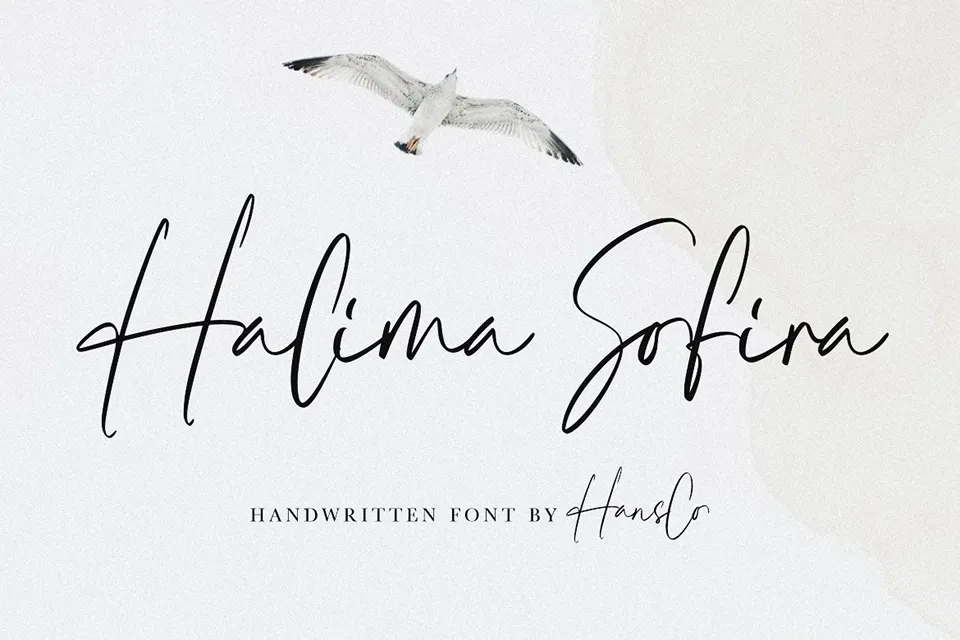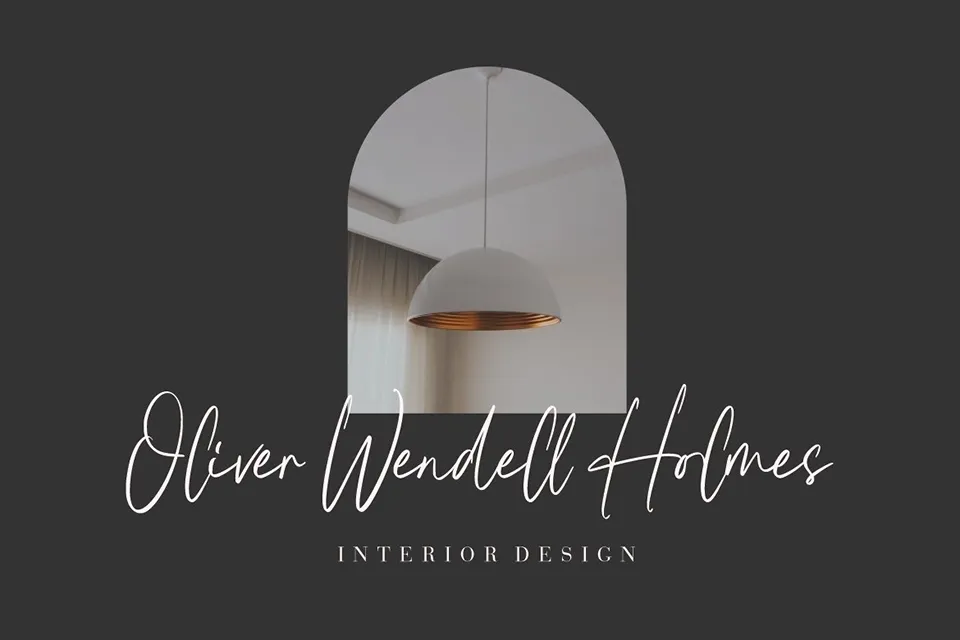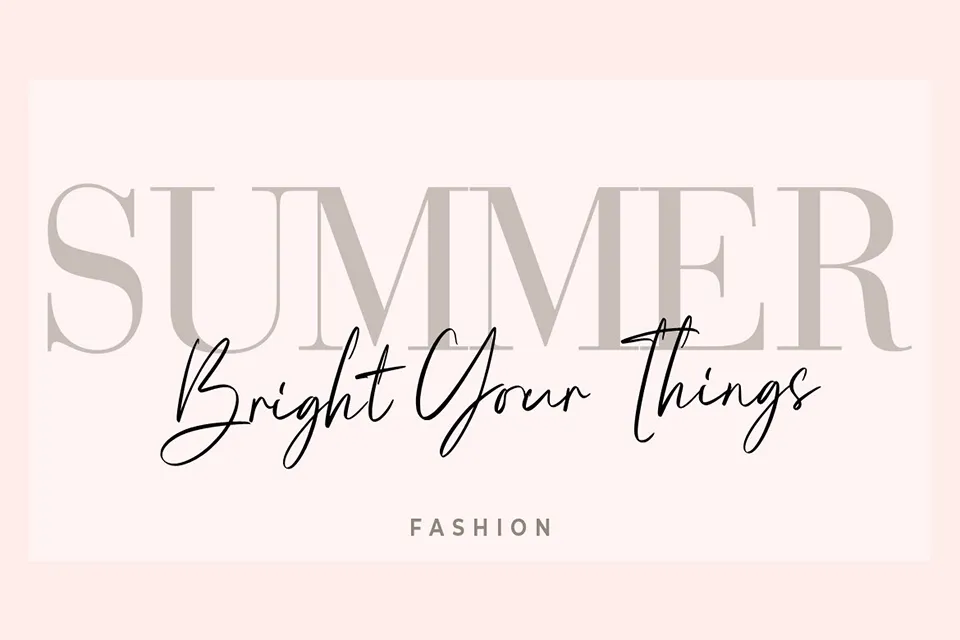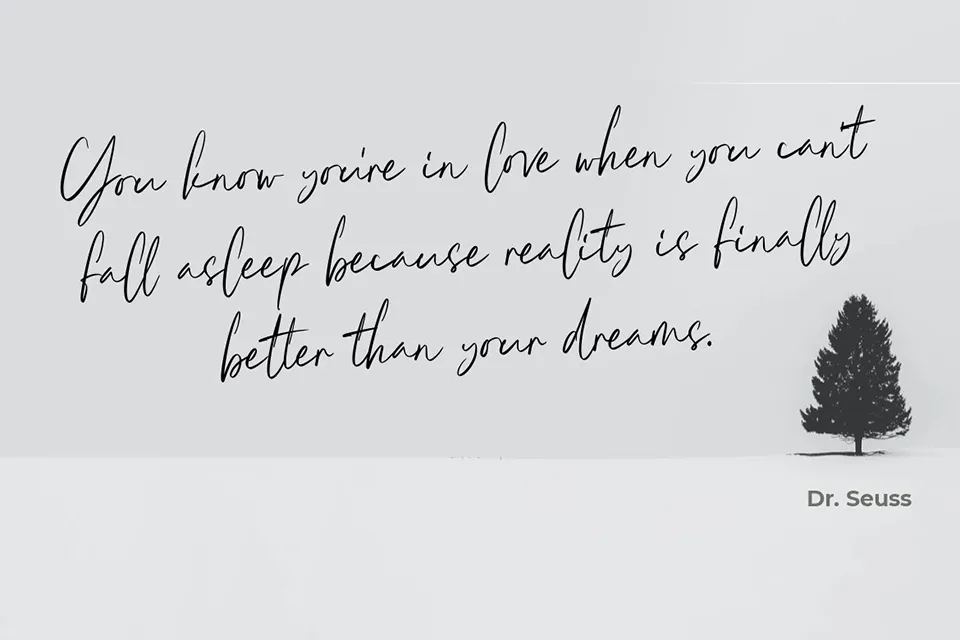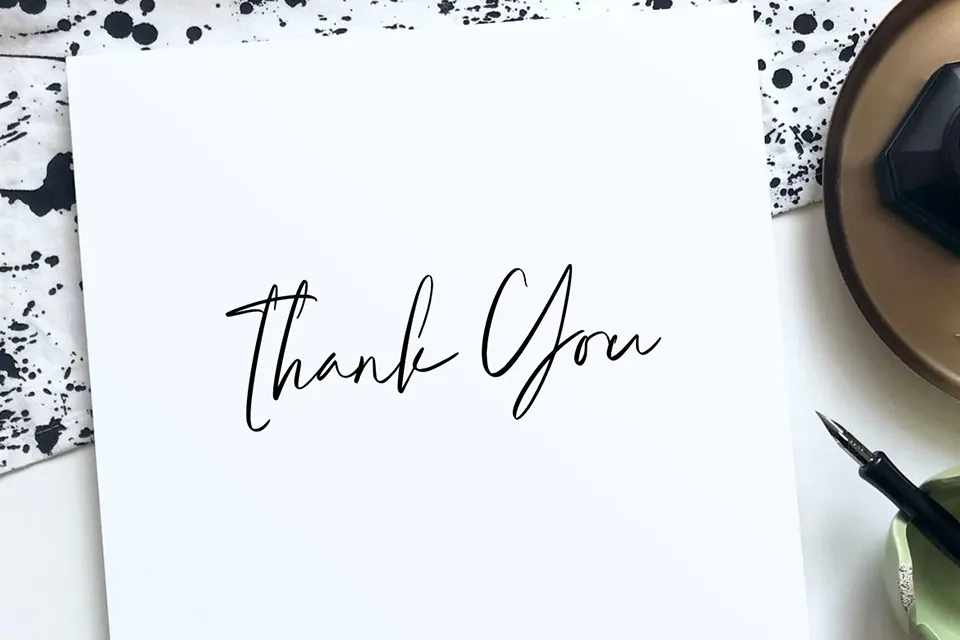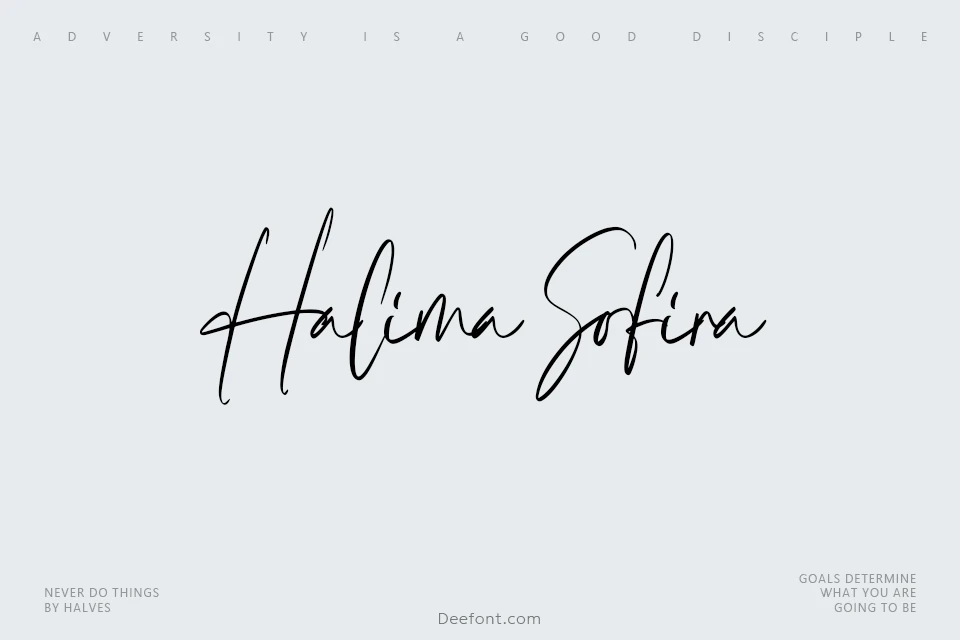
Halima Sofira Font
Halima Sofira Font is a stylish and refined handwritten typeface that combines modern elegance with natural handwriting charm. This beautiful script font features flowing, organic strokes that create a personalized and authentic feel perfect for various design applications. Halima Sofira Font looks stunning on wedding invitations, thank you cards, greeting cards, logos, branding projects, and social media graphics. With its graceful letterforms and smooth connections, Halima Sofira Font brings sophistication and warmth to any creative project requiring a personal touch and artistic flair.